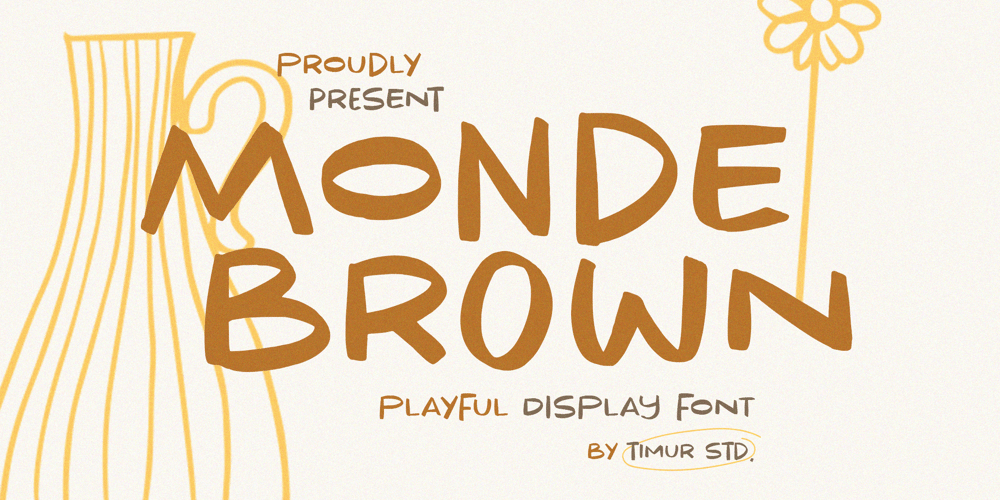
Monde Brown Font Family was designed by Wara Sigit Tri Pamungkas and published by Timurtype. Monde Brown contains 1 styles and family package options. Introduced by Timurtype Studio!Monde Brown is a Playful Display FontThis font is a playful and dynamic display font designed to bring a lively and engaging feel to your projects. Characterized by a bold aesthetic and rounded edges, it is ideal for branding, headlines, logos, and editorial designs. The font includes enabling creative and fluid combinations for enhanced visual appeal. Monde Brown also supports multilingualismEnhance your designs with our original fonts, feel free to comment or provide feedback, Enjoy the fonts 😊Thank You